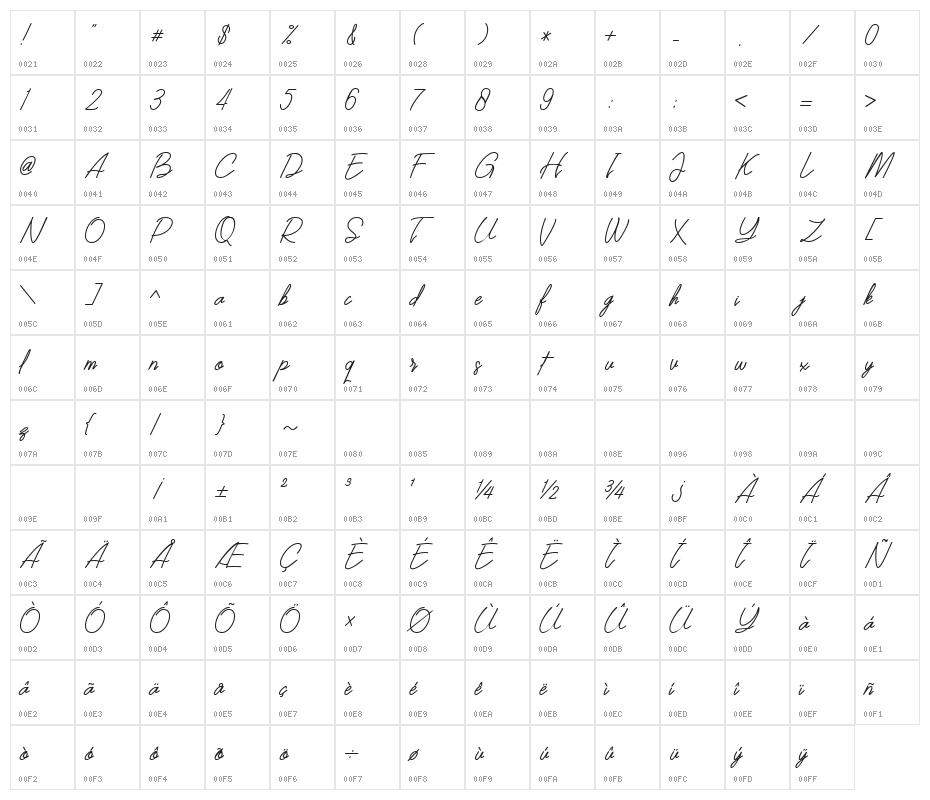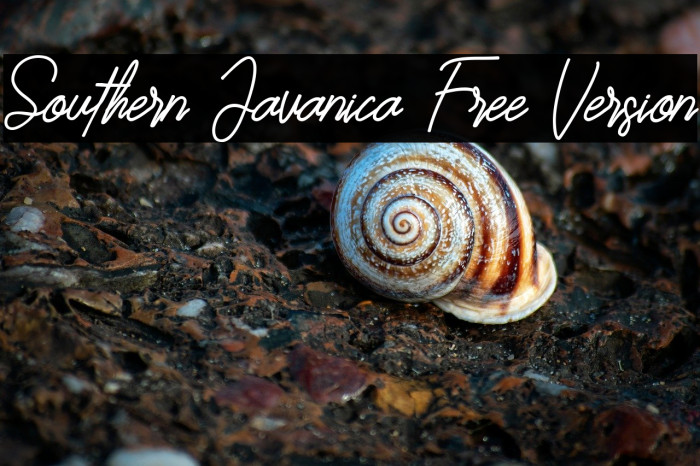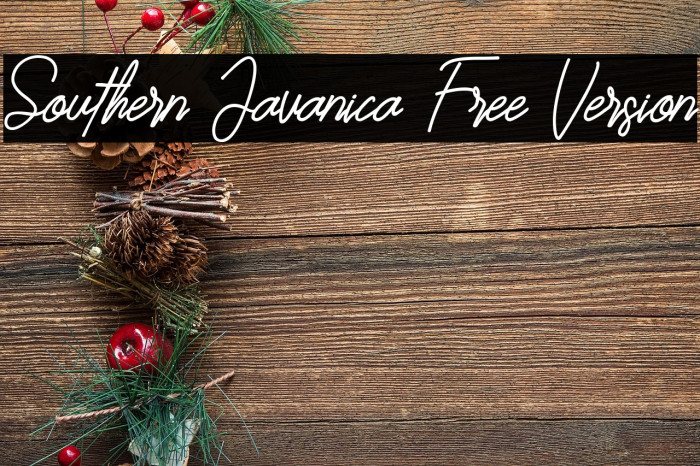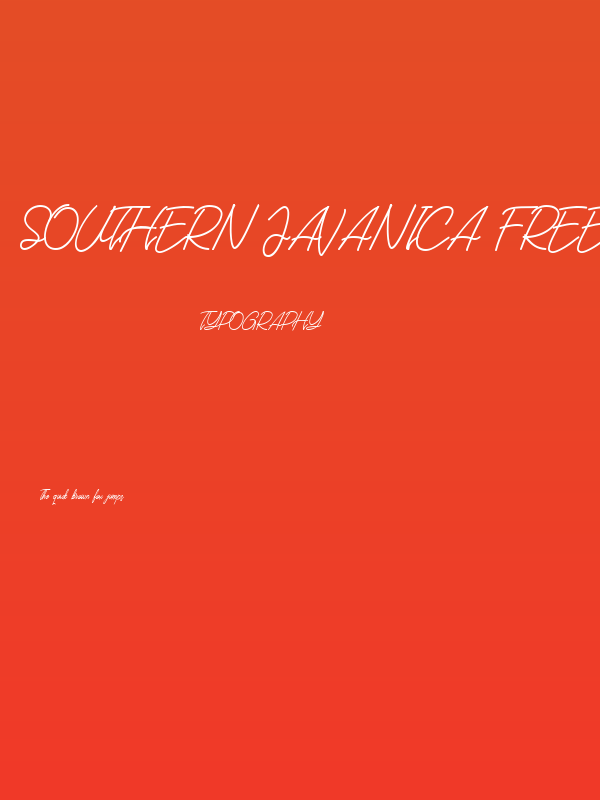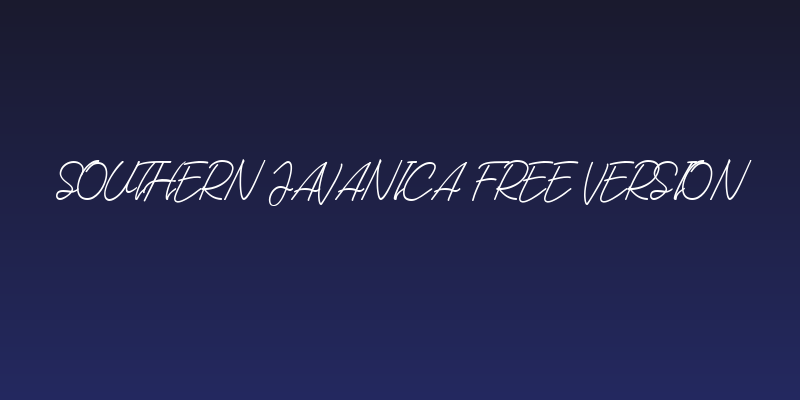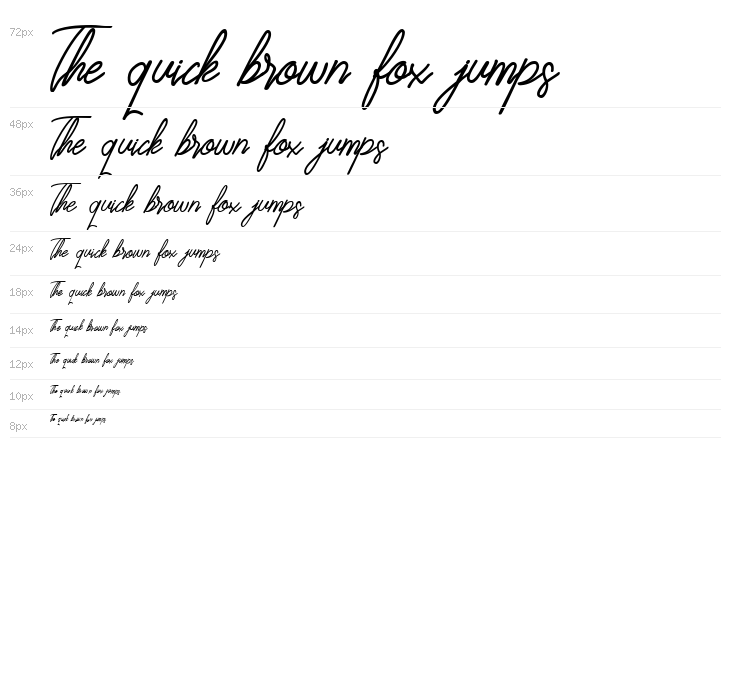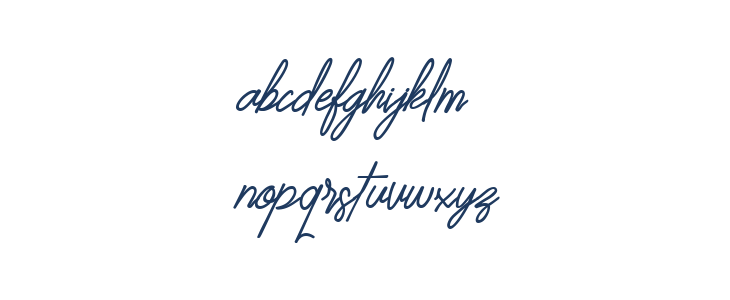
Southern Javanica Free Version Font
Southern Javanica Free Version Description
This font features a flowing, cursive style with elegant, sweeping lines that give it a sophisticated and artistic appearance. The uppercase letters are bold and prominent, with a slight slant that adds a dynamic feel. The lowercase letters maintain a consistent flow, with smooth connections between characters, enhancing readability while preserving the script's aesthetic. Numbers are designed with the same fluidity, ensuring a cohesive look across all characters. Special characters are integrated seamlessly, maintaining the font's overall elegance. This font is perfect for projects that require a touch of class and creativity.
| Overall Style | Elegant, Artistic |
| Proposed Projects | Ideal for wedding invitations, branding, logos, and artistic projects that require a touch of elegance. |